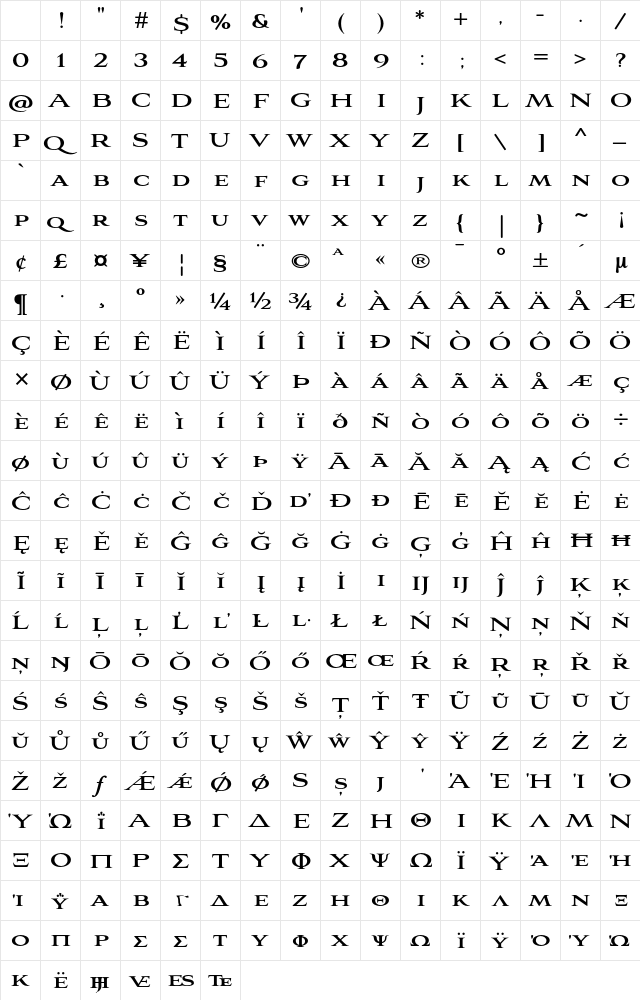
Aviano Bold is a composed and adaptable typeface that performs quietly and consistently across a wide range of design contexts. Its bold stroke weight gives it real presence on the page.